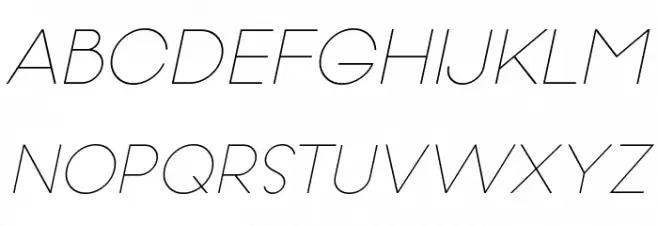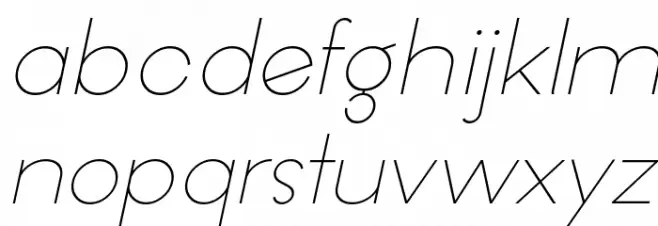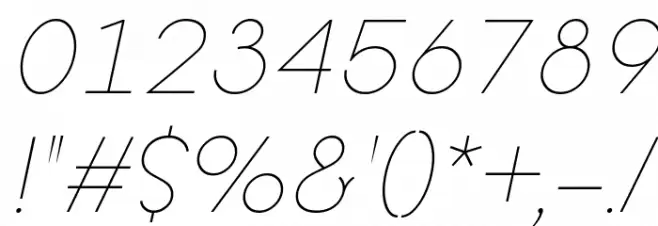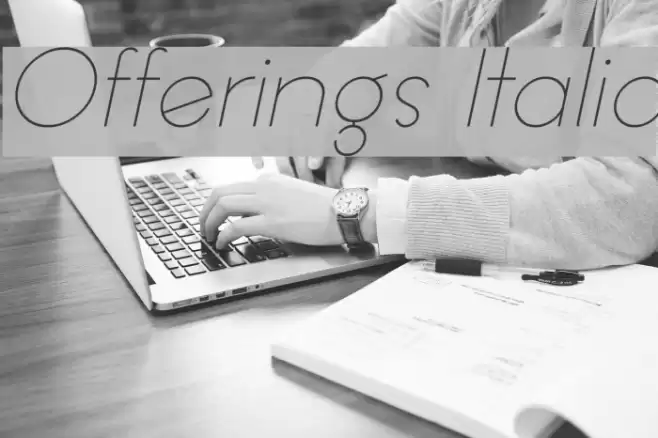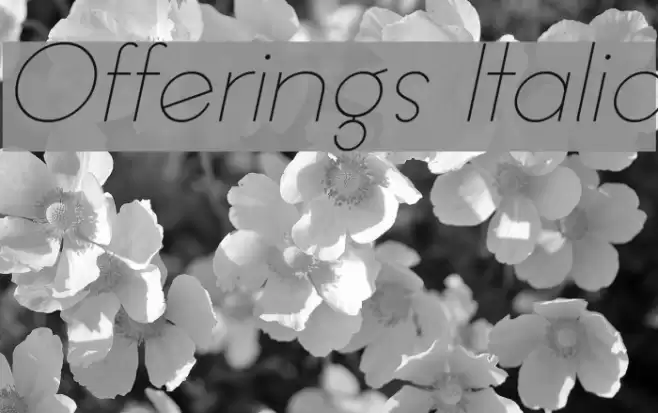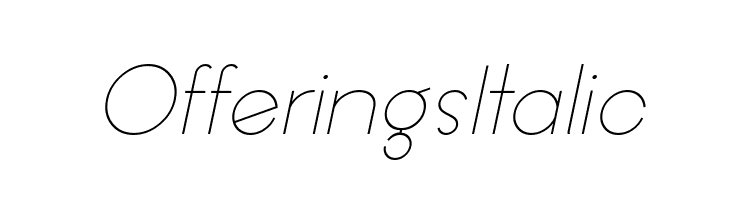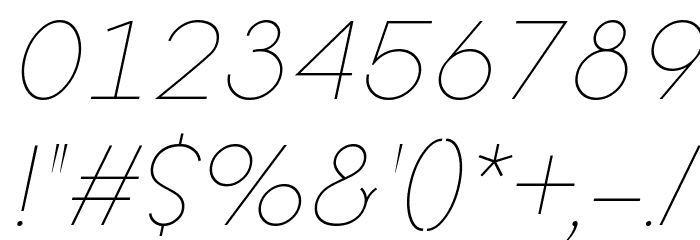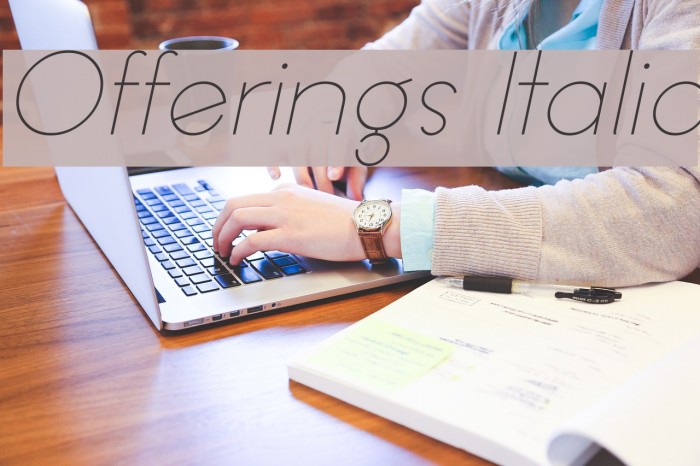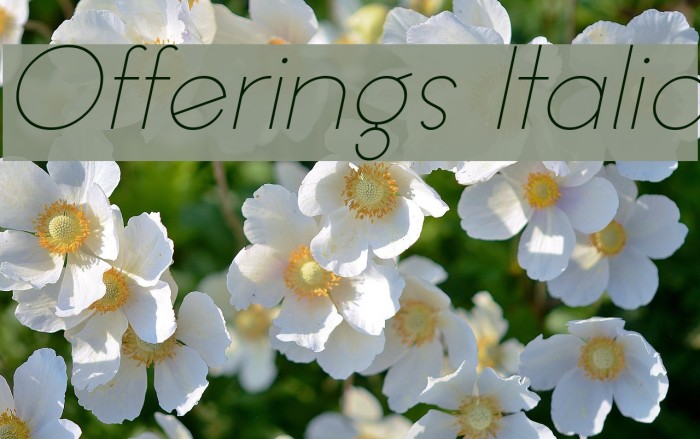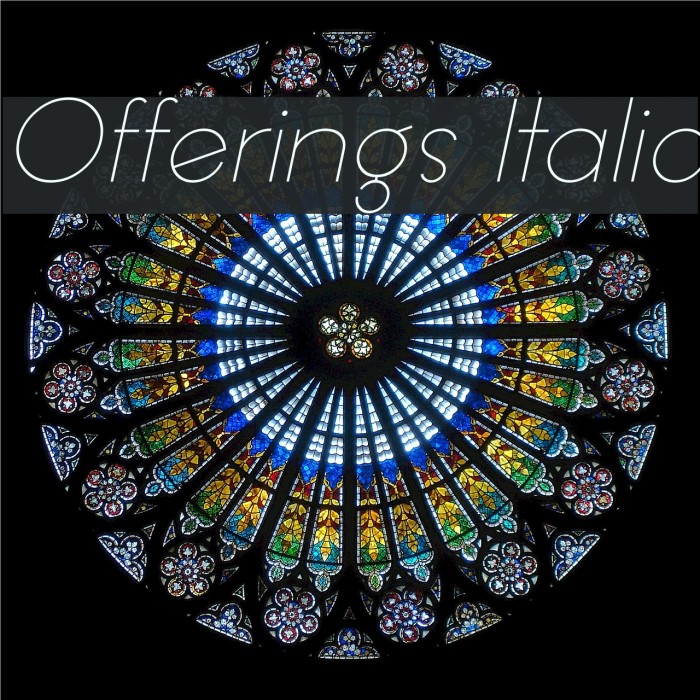
Offerings Italic
This font features a sleek, modern design with a distinct italic slant, giving it a dynamic and sophisticated appearance. The characters are thin and elongated, with smooth curves and minimalistic lines that convey elegance and simplicity. The uppercase letters maintain a consistent height, while the lowercase letters have a gentle flow, enhancing readability. The numerals are proportionate and align well with the overall style, making them suitable for various applications. Special characters are included, maintaining the font's cohesive look. The font's airy and open design makes it ideal for projects that require a clean and contemporary aesthetic.
A modern, italic font with sleek, elongated characters and a minimalist design.
- Proposed Projects: Ideal for branding, editorial design, fashion magazines, and modern websites.
- Weight: Light